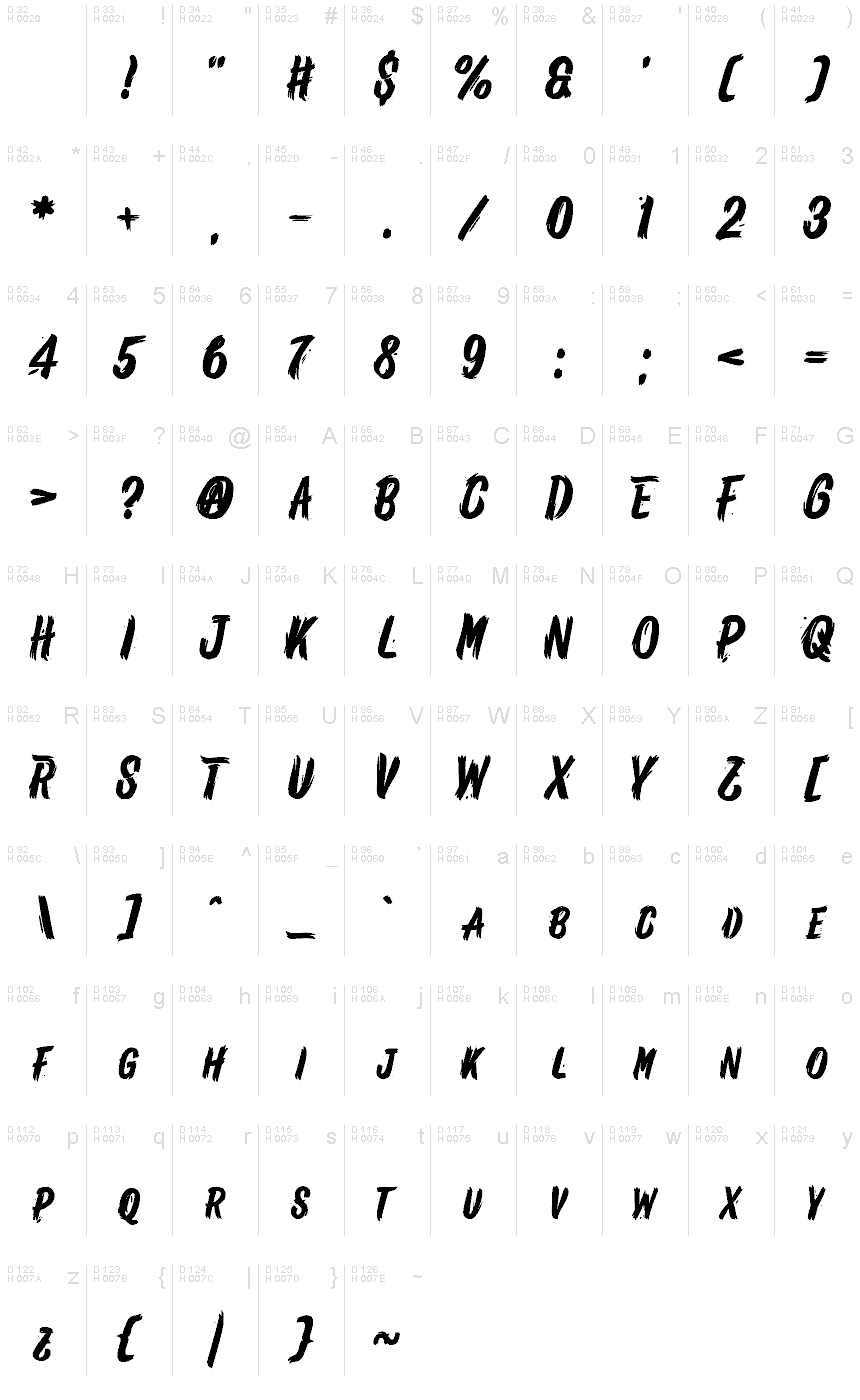
Shred Handed
Shred Handed font designed by Chequered Ink is a free brush font whose grunge textures form its distinctive look. Having this expressive feel aims to provide an unusual effect when used in projects due to its rebellious tone, modern aesthetic, and energetic vibe. Its slightly condensed width can also play a role in creating the unusualness of your projects.
Possible items on which you can use this font include book covers, card designs, movie titles, logos and branding designs, postcards, or quotes. It’s also great on magazine covers, social media posters and posts, T-shirt designs with nice quotes or illustrations as well as other apparel items.